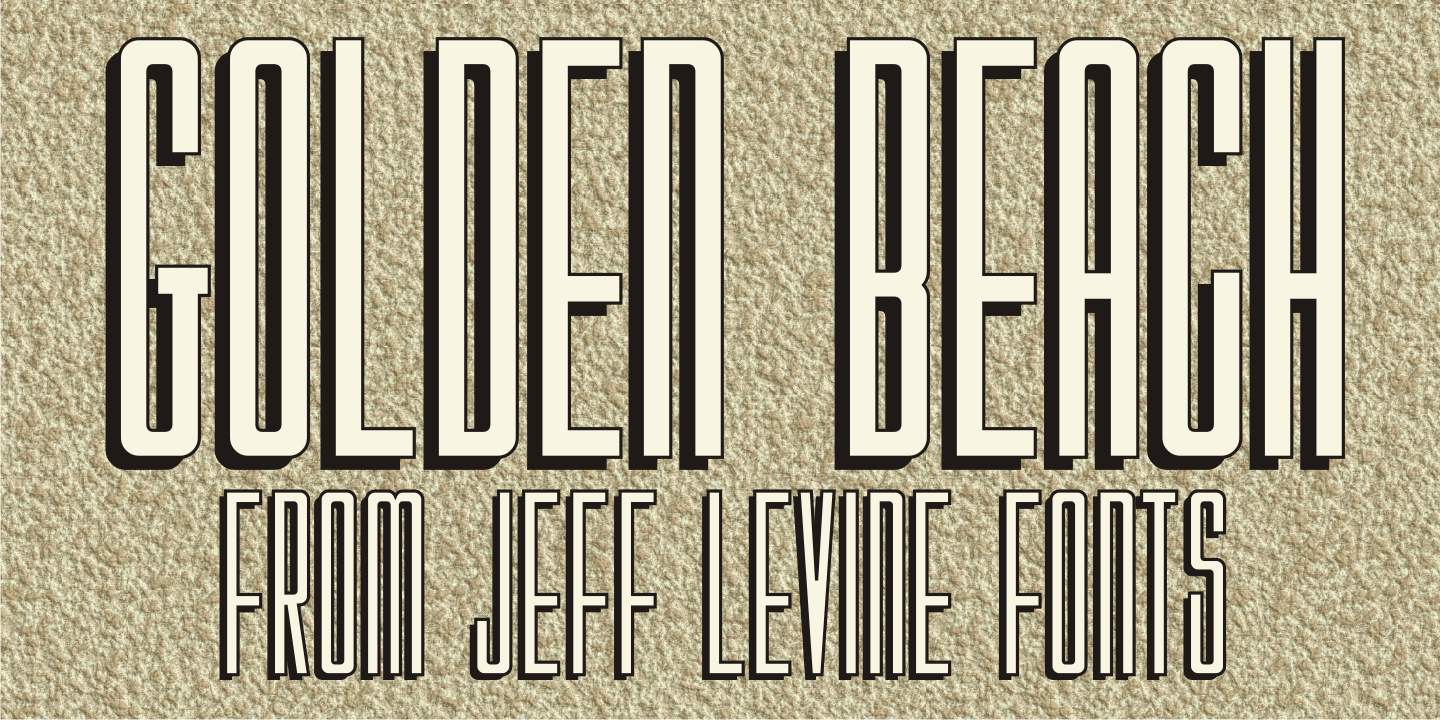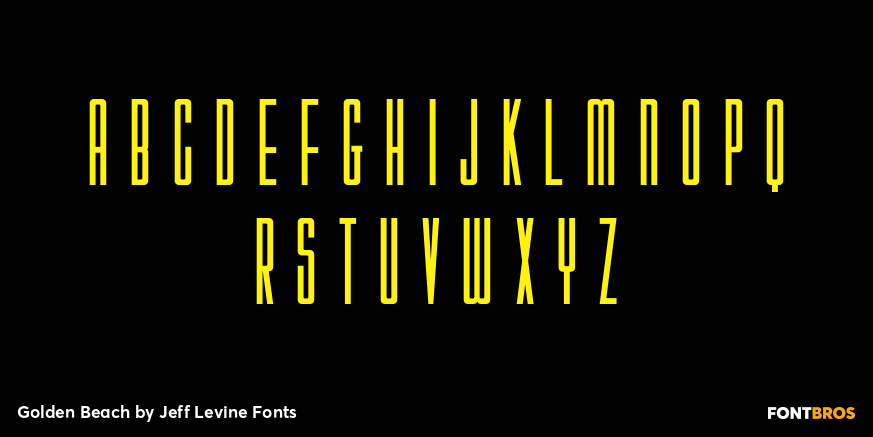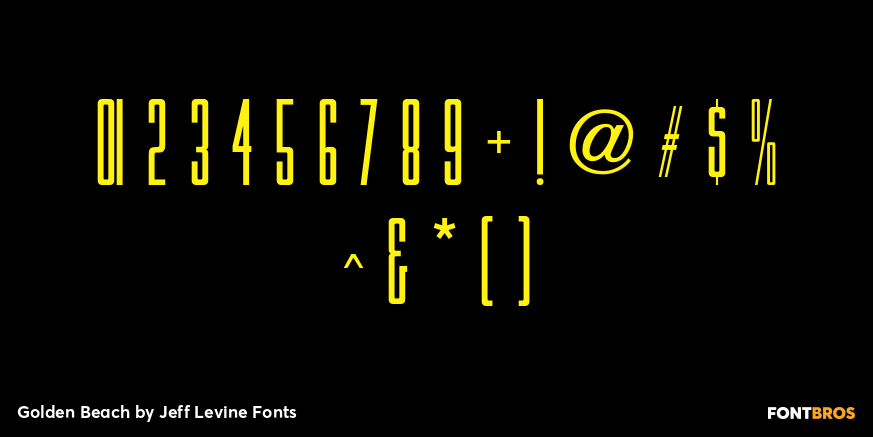
Golden Beach
Art Deco monogram initials on a vintage business card from the Miami area inspired Golden Beach JNL.
The font was named for a small upscale South Florida residential community located between Sunny Isles Beach in the Northern part of Miami-Dade County and Hallandale Beach in Southernmost Broward County.